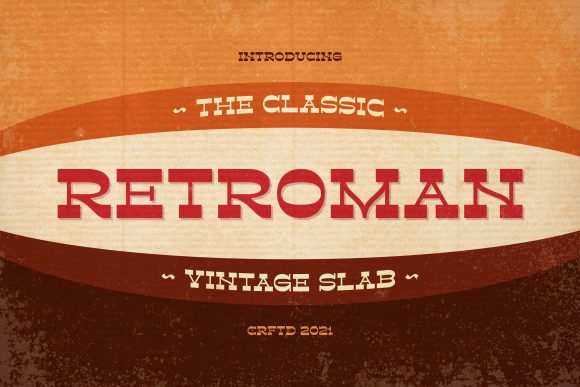
Introducing Retroman Font, a remarkable masterpiece from the creative minds at almarkhatype. This slab serif font exudes a timeless allure, boasting a cool, vintage style that instantly captivates the senses, offering a touch of nostalgia to your digital creations.
With its intricate details and distinct character, Retroman Font is more than just a font; it's an artistic expression that speaks volumes. Its elegant curves and sharp edges dance together, creating a visual symphony that commands attention. Whether you're crafting captivating logos, designing eye-catching posters, or adding a touch of sophistication to your branding materials, Retroman Font is your trusted companion.
Dive into a world of creative possibilities with Retroman Font. Its versatility knows no bounds, making it the perfect choice for a wide range of projects. From elegant wedding invitations to striking social media graphics, Retroman Font seamlessly adapts to your vision. Experience the joy of effortless creativity as you witness your designs come to life with a font that truly elevates your artistic expression.
But Retroman Font is more than just aesthetically pleasing; it's meticulously crafted to provide exceptional functionality. Its PUA encoding allows for seamless access to a treasure trove of glyphs and swashes, empowering you to unleash your imagination and add intricate details to your designs. Say goodbye to limitations and embrace a world of boundless creativity with Retroman Font.
Join the league of creative visionaries who have discovered the transformative power of Retroman Font. Let your imagination take flight and witness the birth of truly remarkable designs. Don't settle for ordinary fonts; embrace the extraordinary with Retroman Font and unlock the gateway to a world of stunning visual masterpieces.